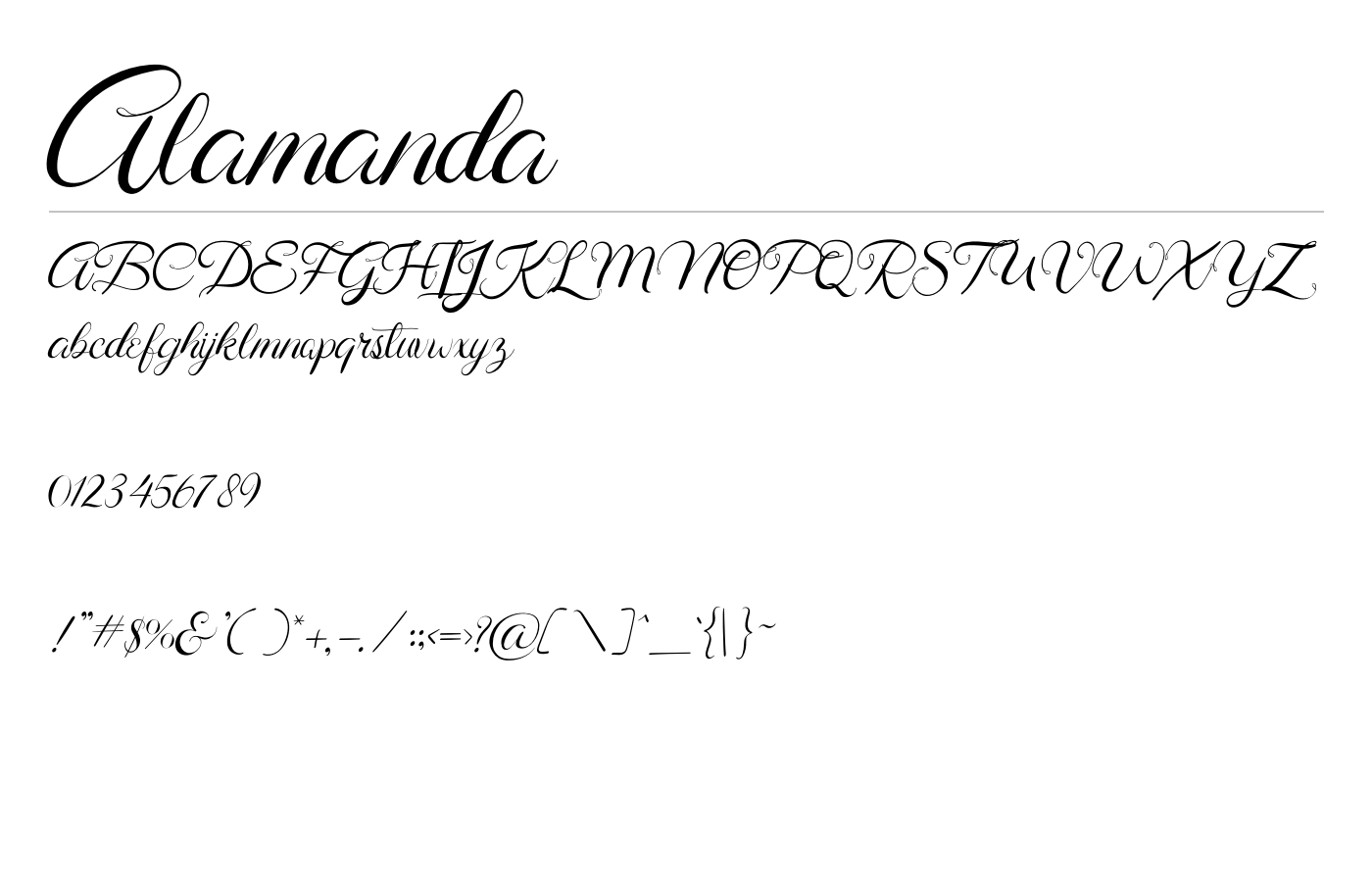
Alamanda is an elegant script font featuring flowing, calligraphic strokes with a graceful contrast between thick and thin lines. Its cursive letterforms and delicate swashes give it a sophisticated, stylish feel, making it ideal for luxury branding, wedding invitations, and upscale editorial designs where a refined, classic touch is desired.
Alamanda Font
About Alamanda Font